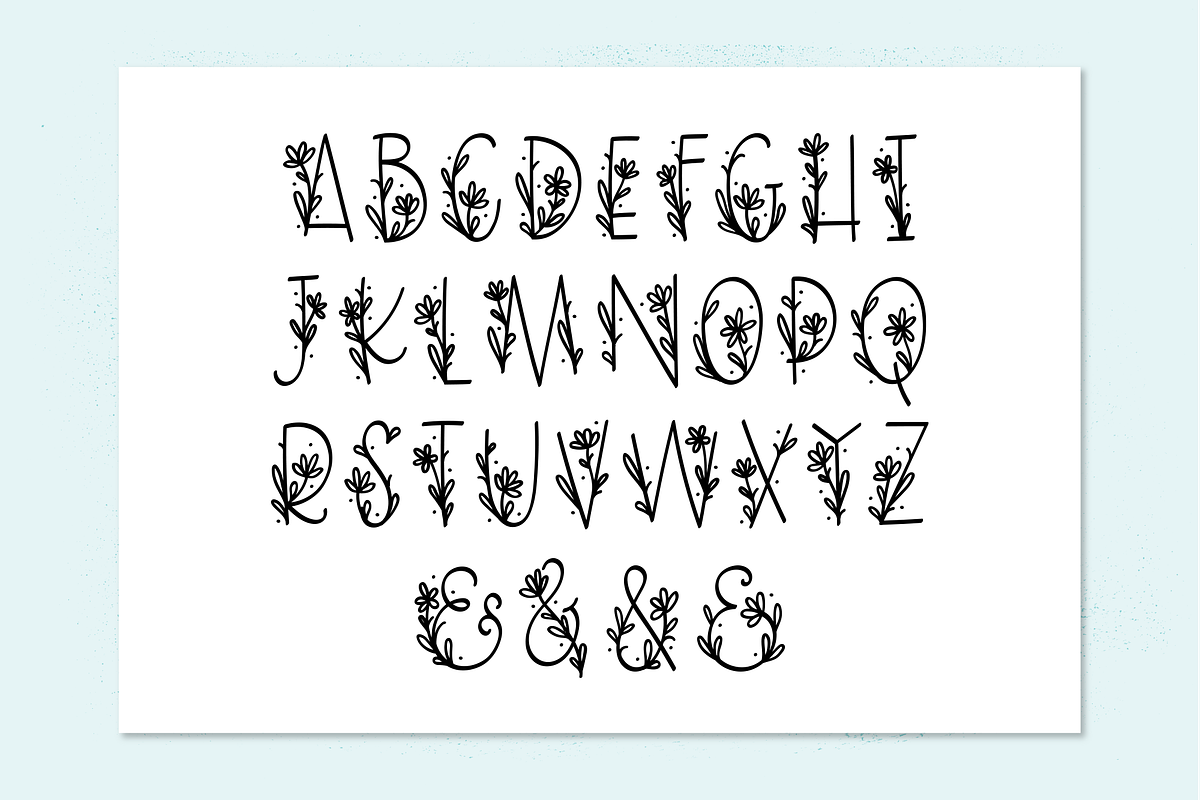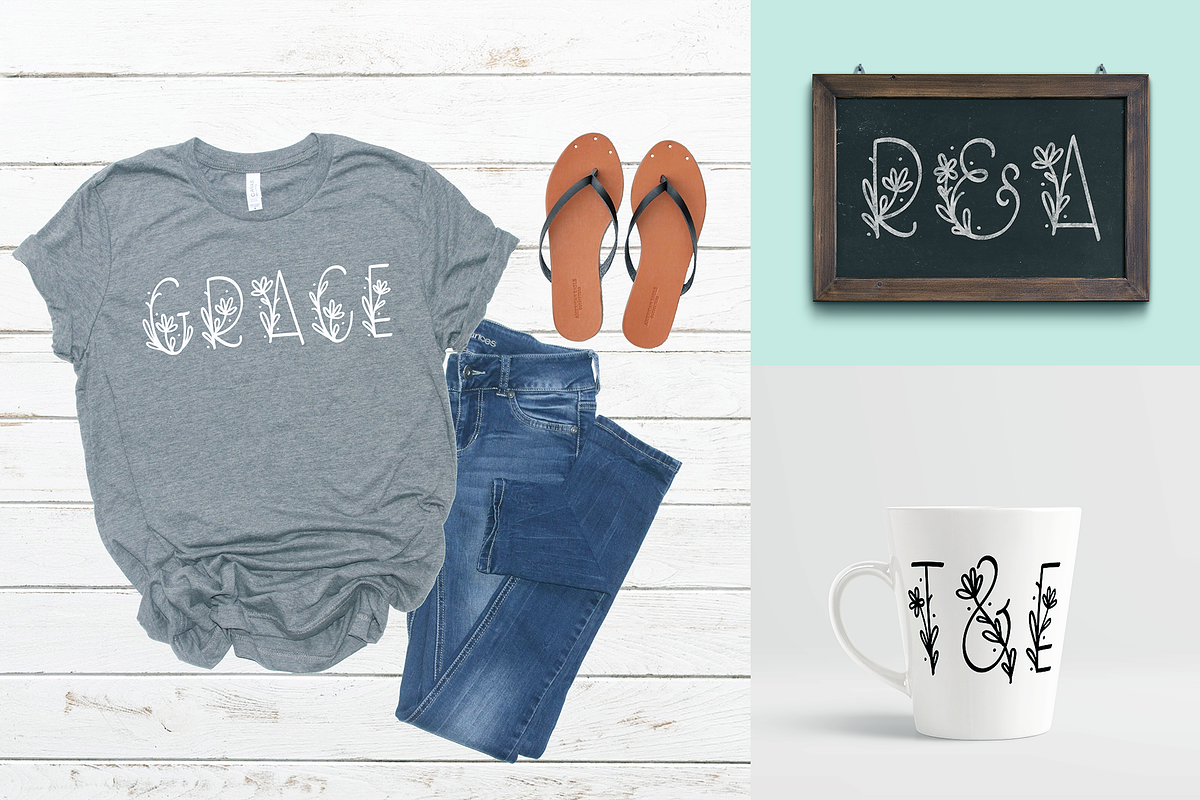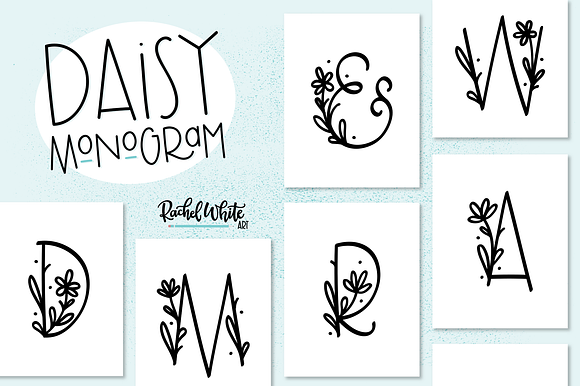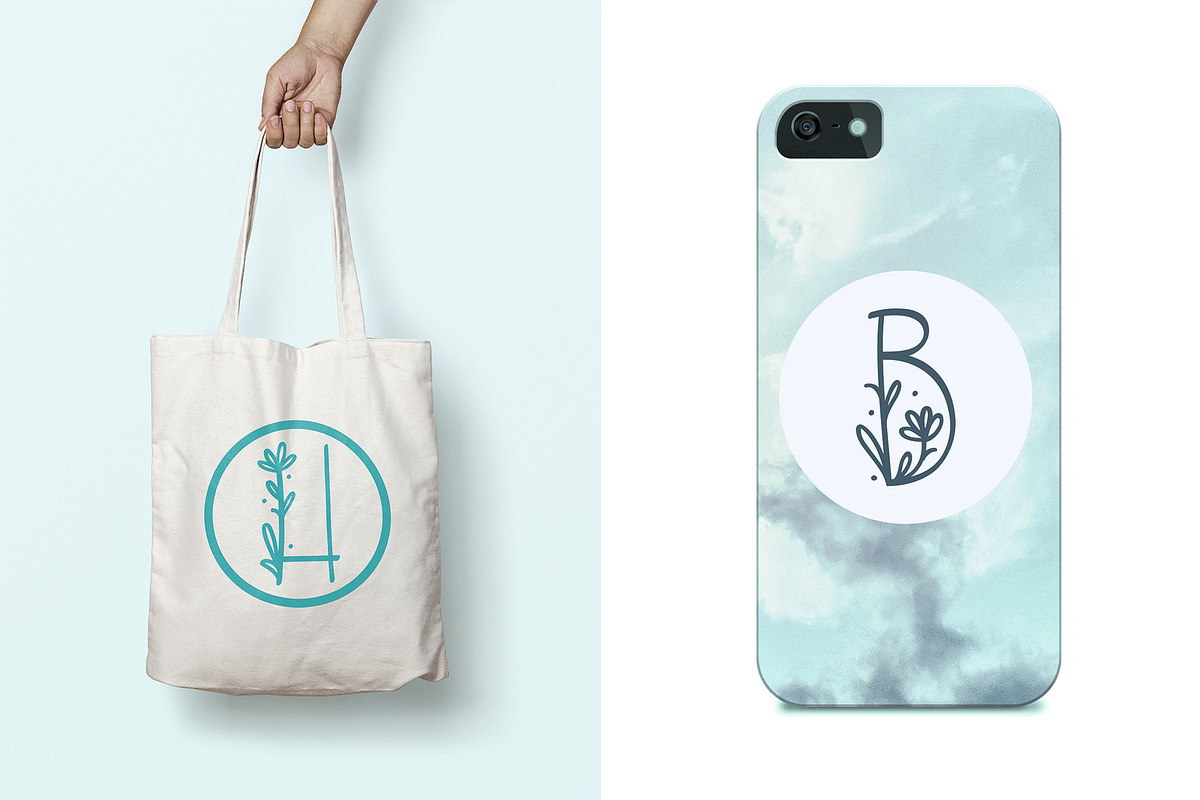
Daisy Monogram Font
Daisy Monogram is a decorative monogram font featuring uppercase floral letters with sweet little daisy details. Designed specifically for monogramming, this font is perfect for personalized gifts, wedding decor, stationery, vinyl projects, and logos where a charming floral touch is just what you need.
Each letter is crafted to stand on its own, making it easy to create initial-based designs with a soft, playful vibe. Great for cricut crafts, custom apparel, or any project that calls for a touch of cute and floral.
Great for: Monograms, gifts, wedding favors, vinyl crafts, logos, baby items, stationery
Use the letters together or solo. Each letter is decorated with a daisy and various leaves. Comes with 4 ampersands, because I like to have lots of options!
- Uppercase letters only (each designed as a stand-alone monogram)